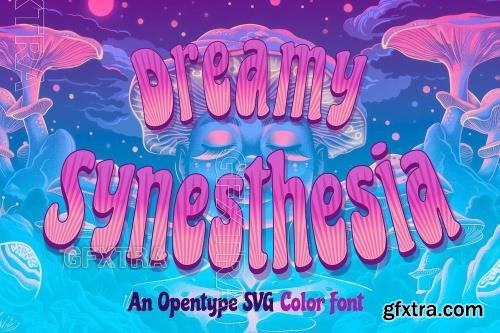
Dreamy Synesthesia font
Dreamy Synesthesia is a mesmerizing psychedelic typeface with elongated, fluid letterforms and a surreal 3D depth. Its trippy, flowing shapes evoke a dreamy, mind-bending aesthetic, perfect for posters, album covers, and bold artistic statements. With its hypnotic curves and multi-dimensional feel, this font transforms words into a vivid, sensory experience